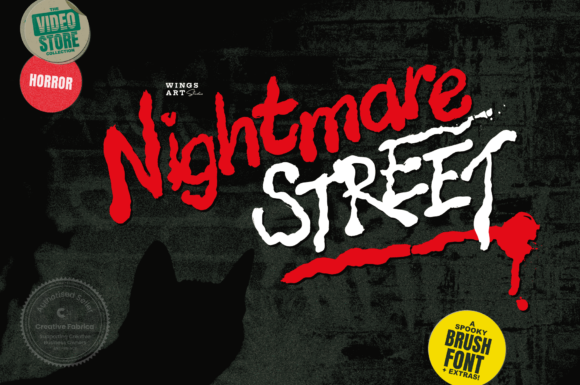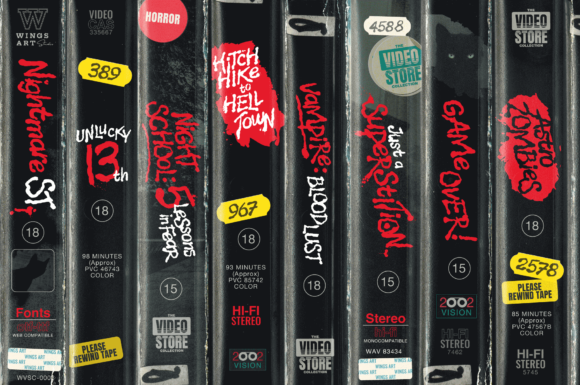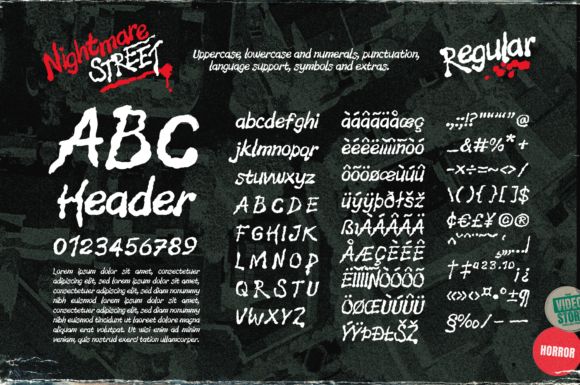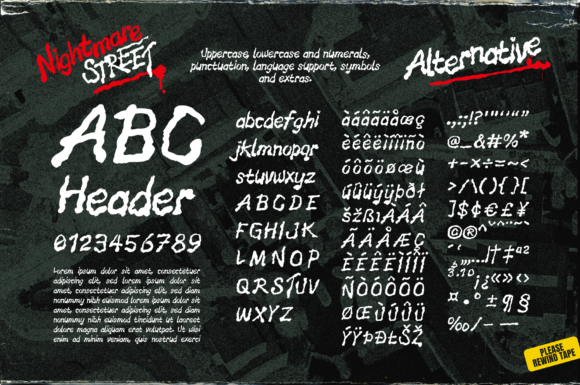
Nightmare Street Font: Creepy Display Font for Halloween & Spooky Designs
About the Nightmare Street Font
Experience the unique personality of Nightmare Street Font, a font designed for impact. Nightmare Street is a cool, creepy and spooky display font. Add it to each of your Halloween design or October party and you will love the results.
Nightmare Street excels as a display font for headlines, posters, and branding projects requiring a bold, spooky aesthetic. Its strong character makes it ideal for Halloween-themed designs, horror movie promotions, or edgy apparel brands. However, its highly stylized nature makes it unsuitable for body text or UI elements where readability is paramount.
Consider pairing Nightmare Street with a clean sans-serif like Open Sans for contrast, or a more playful, rounded sans-serif like Bubblegum Sans for a slightly less aggressive feel. For a more sophisticated look, a classic serif like Garamond could provide a refined counterpoint to the font’s dramatic personality.
The font’s core personality is undeniably bold and dramatic, conveying a sense of mystery and intrigue. Its strong forms and sharp details create a memorable visual impact, perfect for projects that demand attention and communicate a strong, slightly rebellious message.
Nightmare Street Font Usage Examples
Nightmare Street Font Example